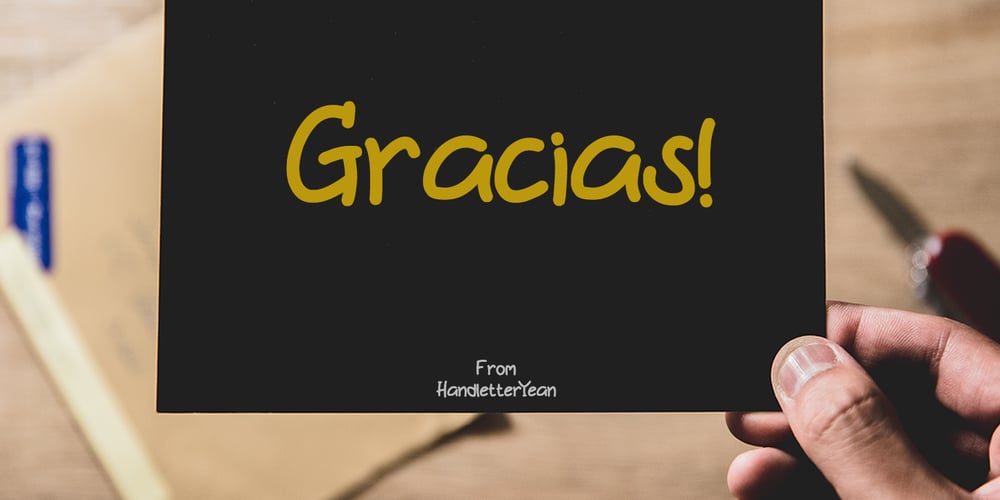
Corazon
Corazon font
Corazon Font Family was designed by Yean Aguste and published by HandletterYean. Corazon contains 4 styles and family package options. Corazon is a simple, yet cute font. This mono-line serif font shows simplicity, and has happy and fun vibe which can be used for quotations, logos, titles, advertising, business cards, signs, greeting cards, flyers, magazines, t-shirts, and much more!